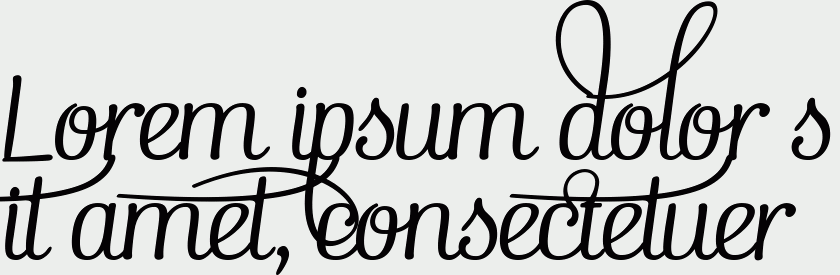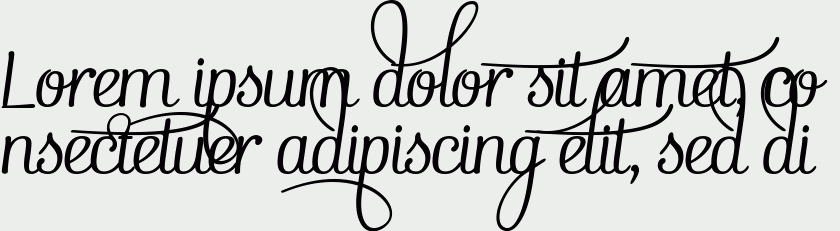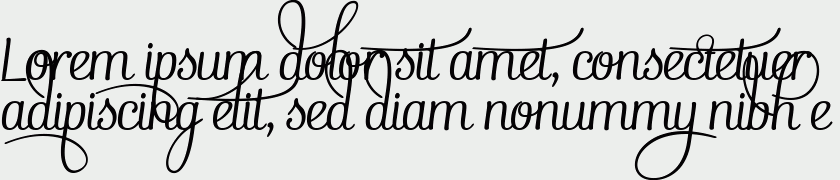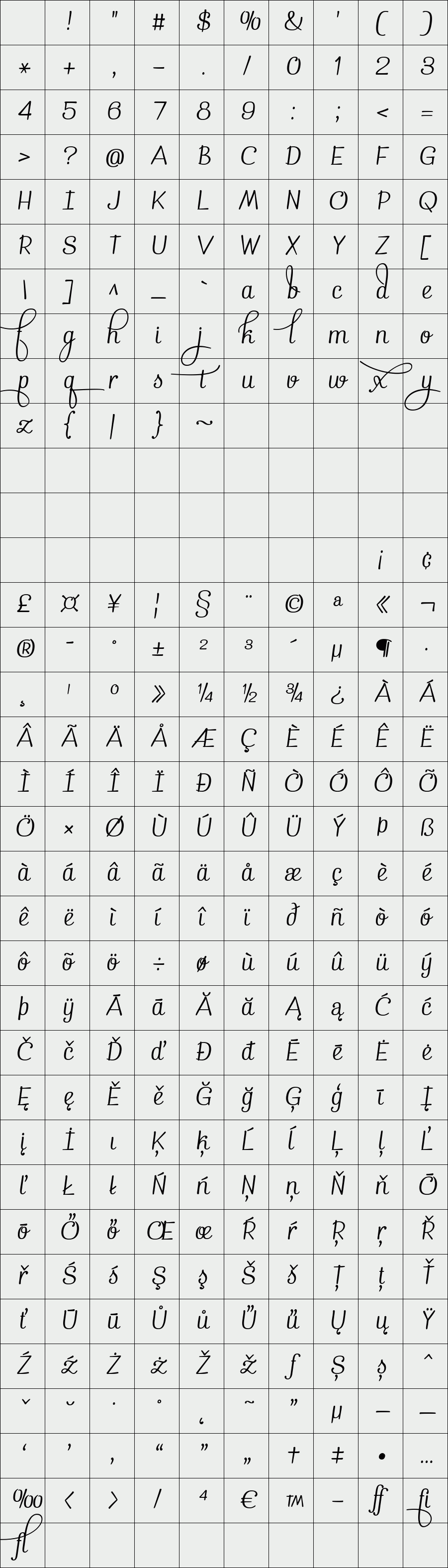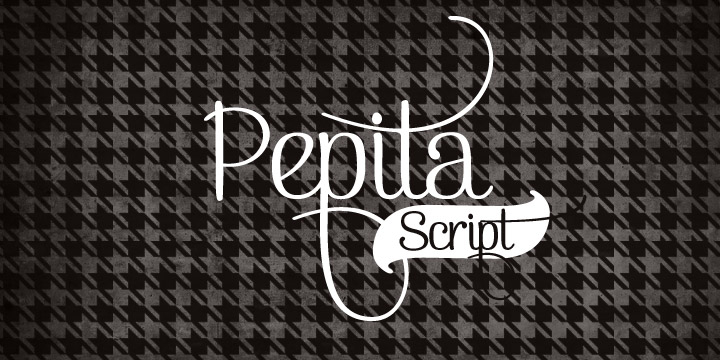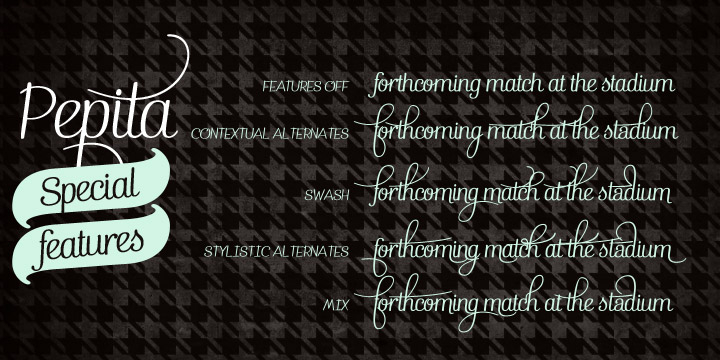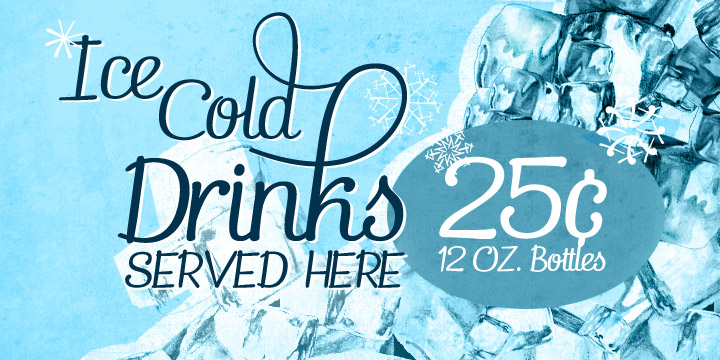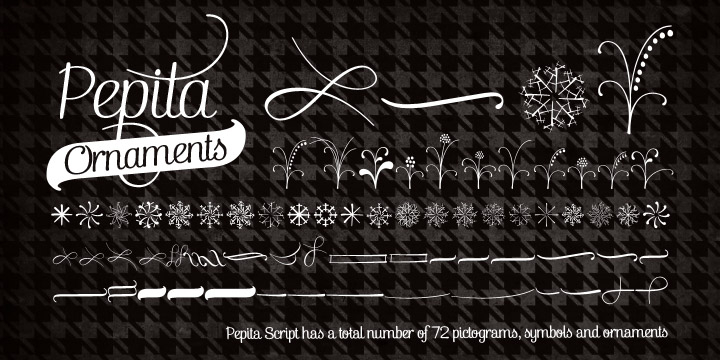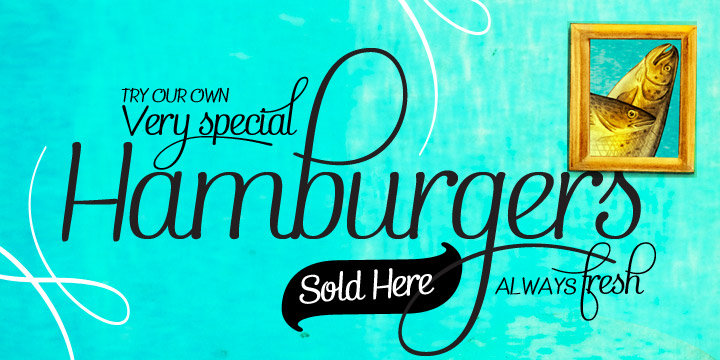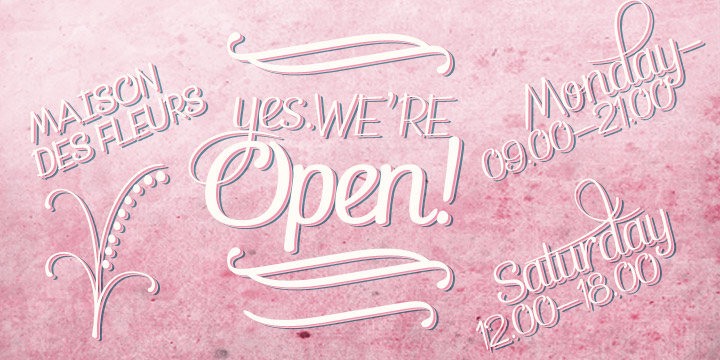
Pepita Script
Pepita is a flexible and easy to use connected script. Pepita has plenty to offer: a selection of 72 ornaments and plenty of ligatures and alternate characters: try turning on Contextual Alternates, Swash or Stylistic Alternates in any Opentype savvy program or manually choose the characters from the glyph palette. For best results combine all 3 weights of the font.